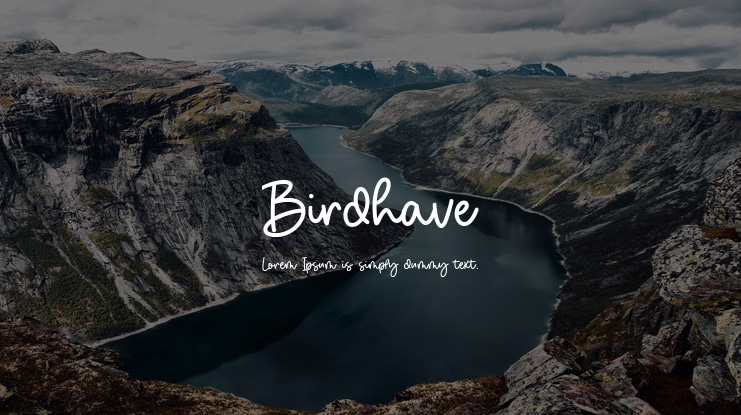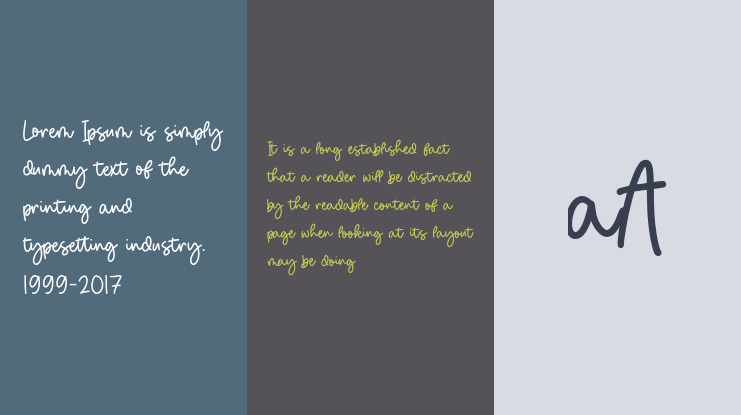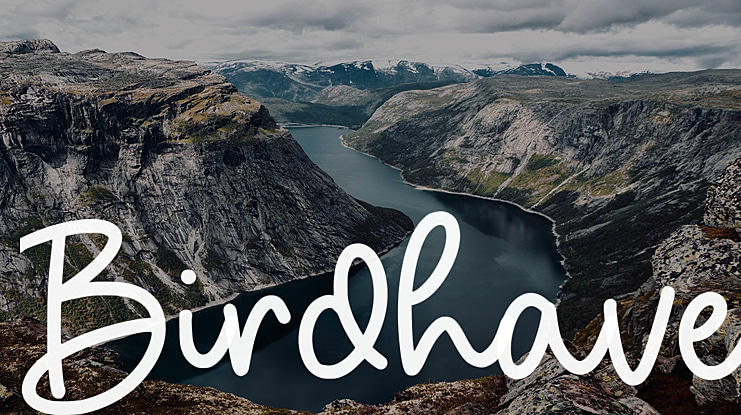
Birdhave Font
Introducing by Letterative Studio : Birdhave Font
Birdhave is a Modern Monoline Handwritten Font
Birdhave is perfect for product packaging, branding project, megazine, social media, wedding, or just used to express words above the background.
Birdhave also multilingual support